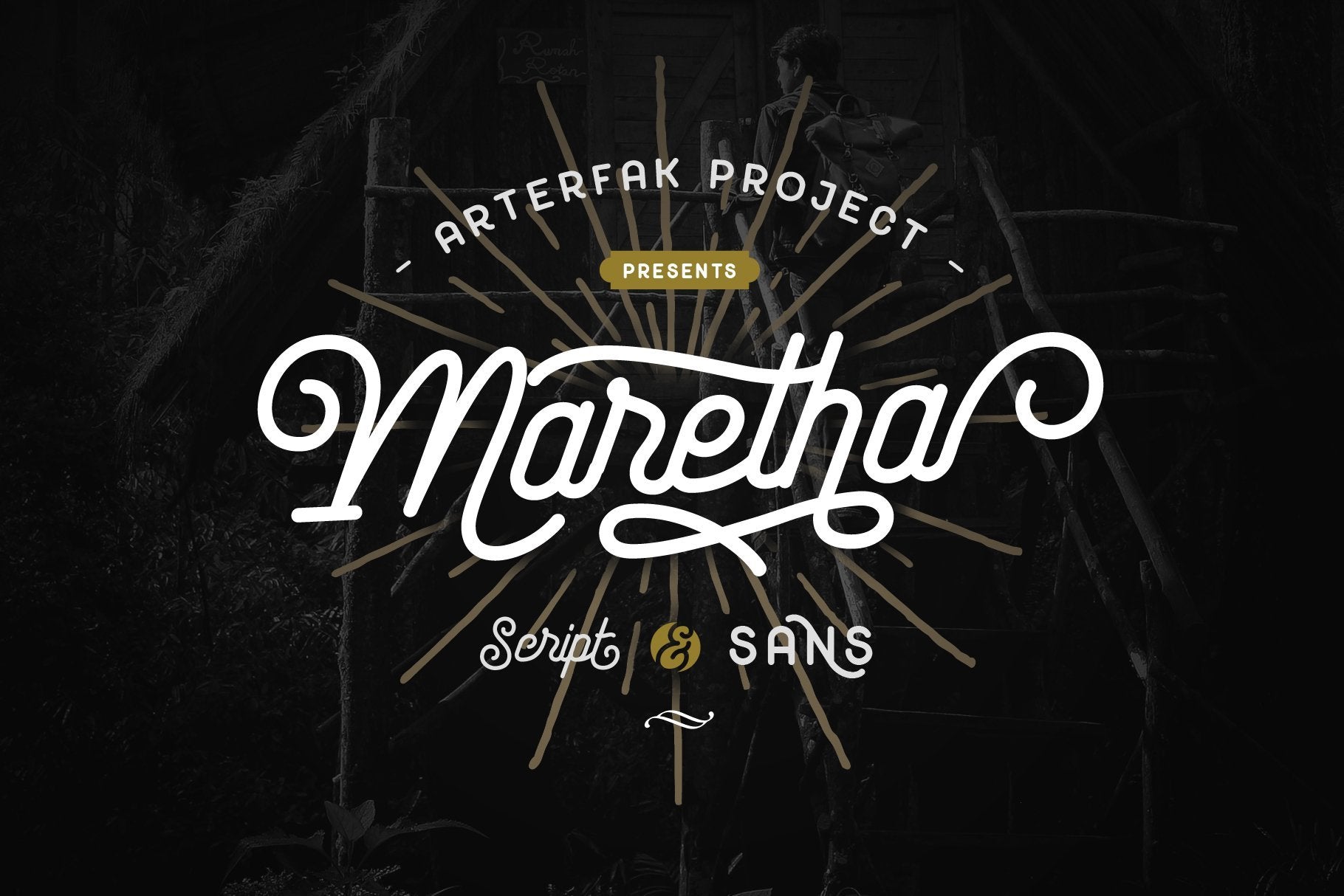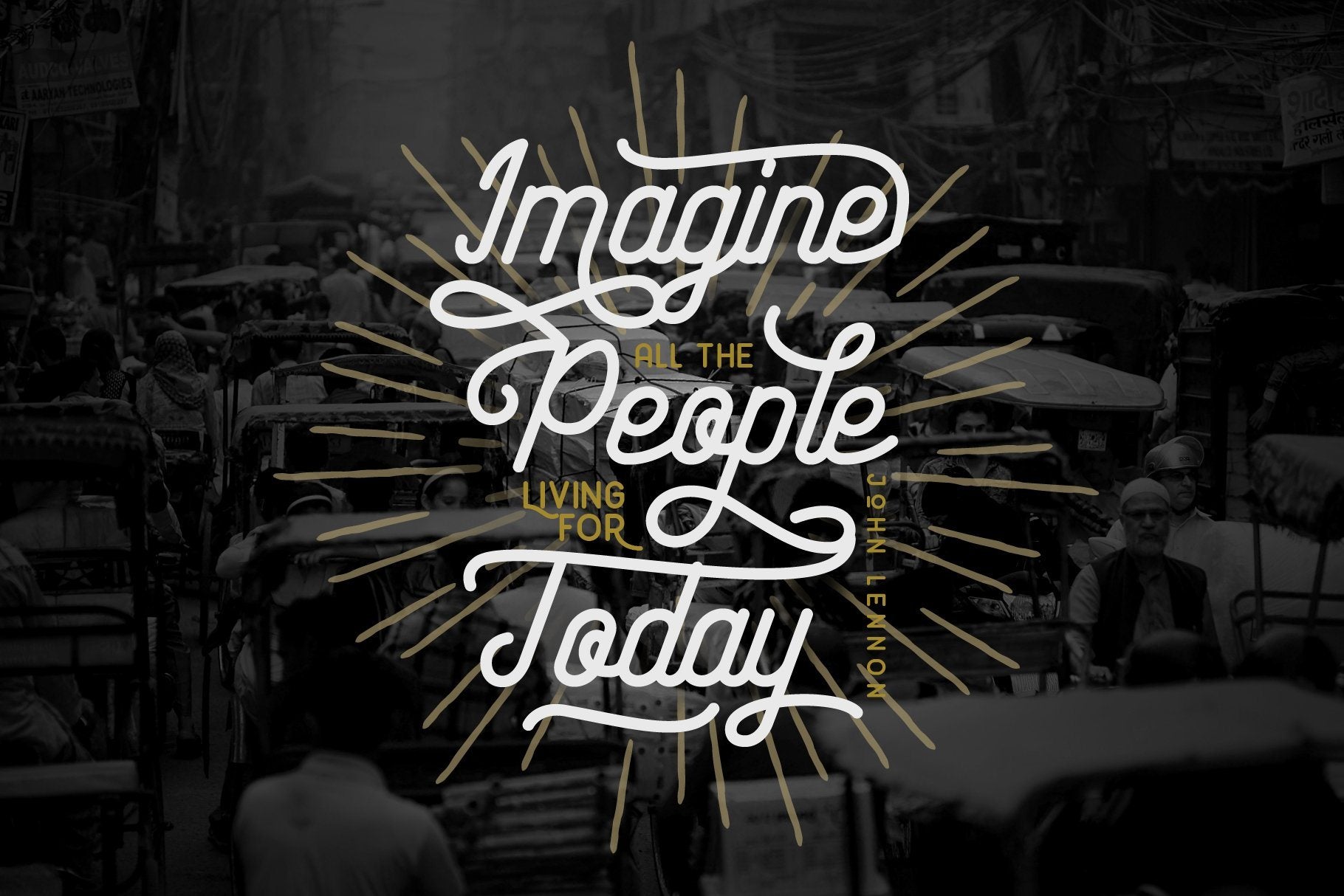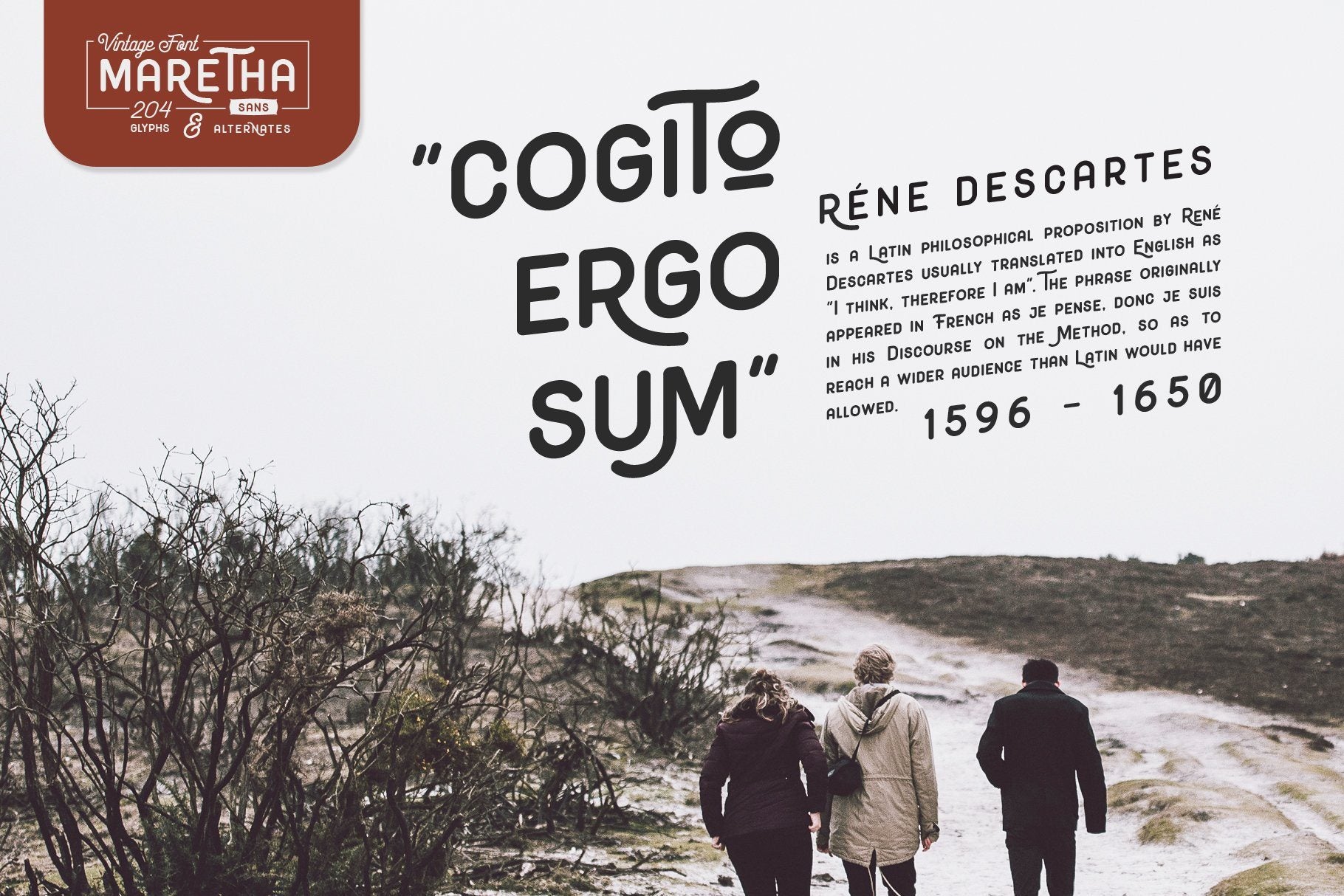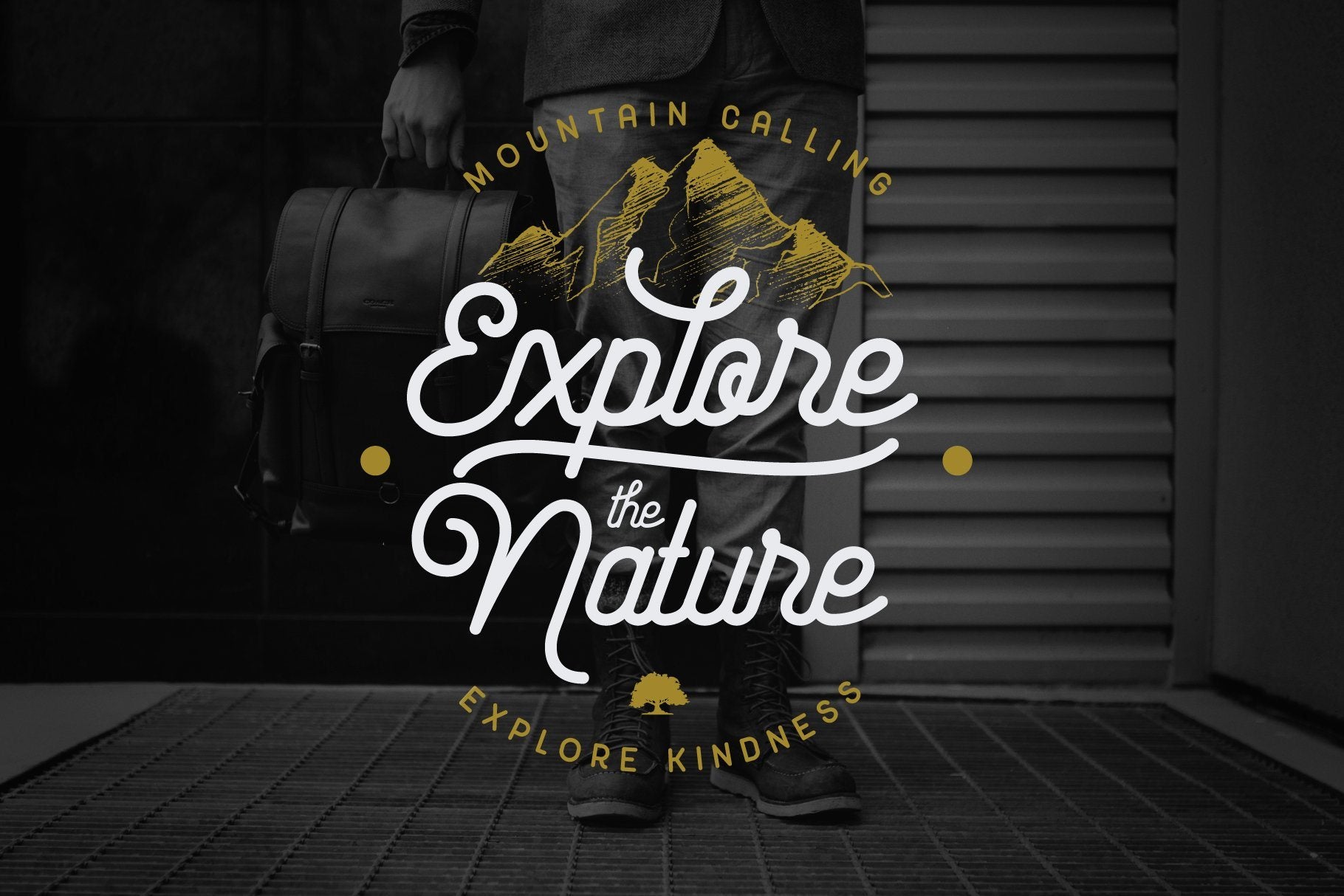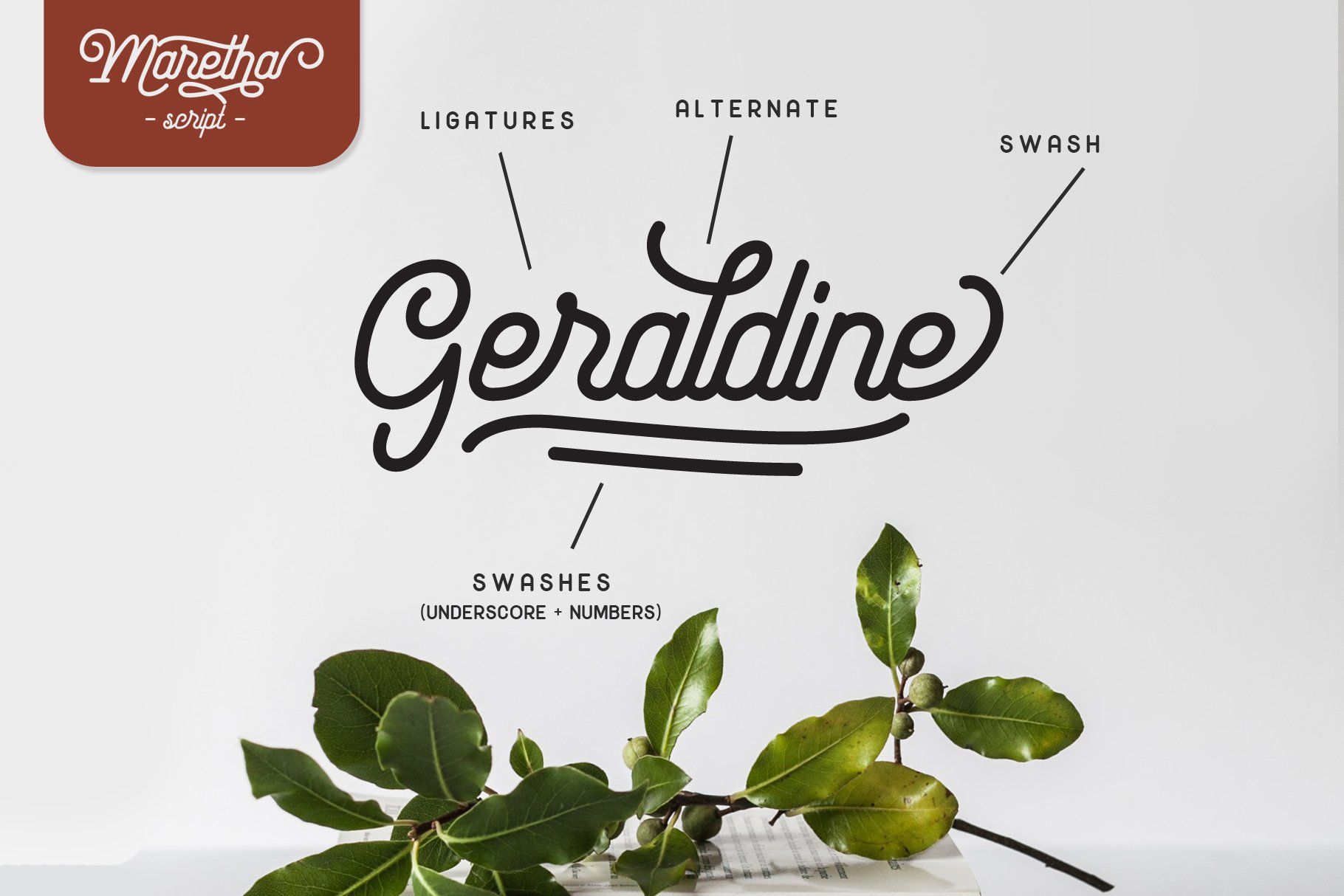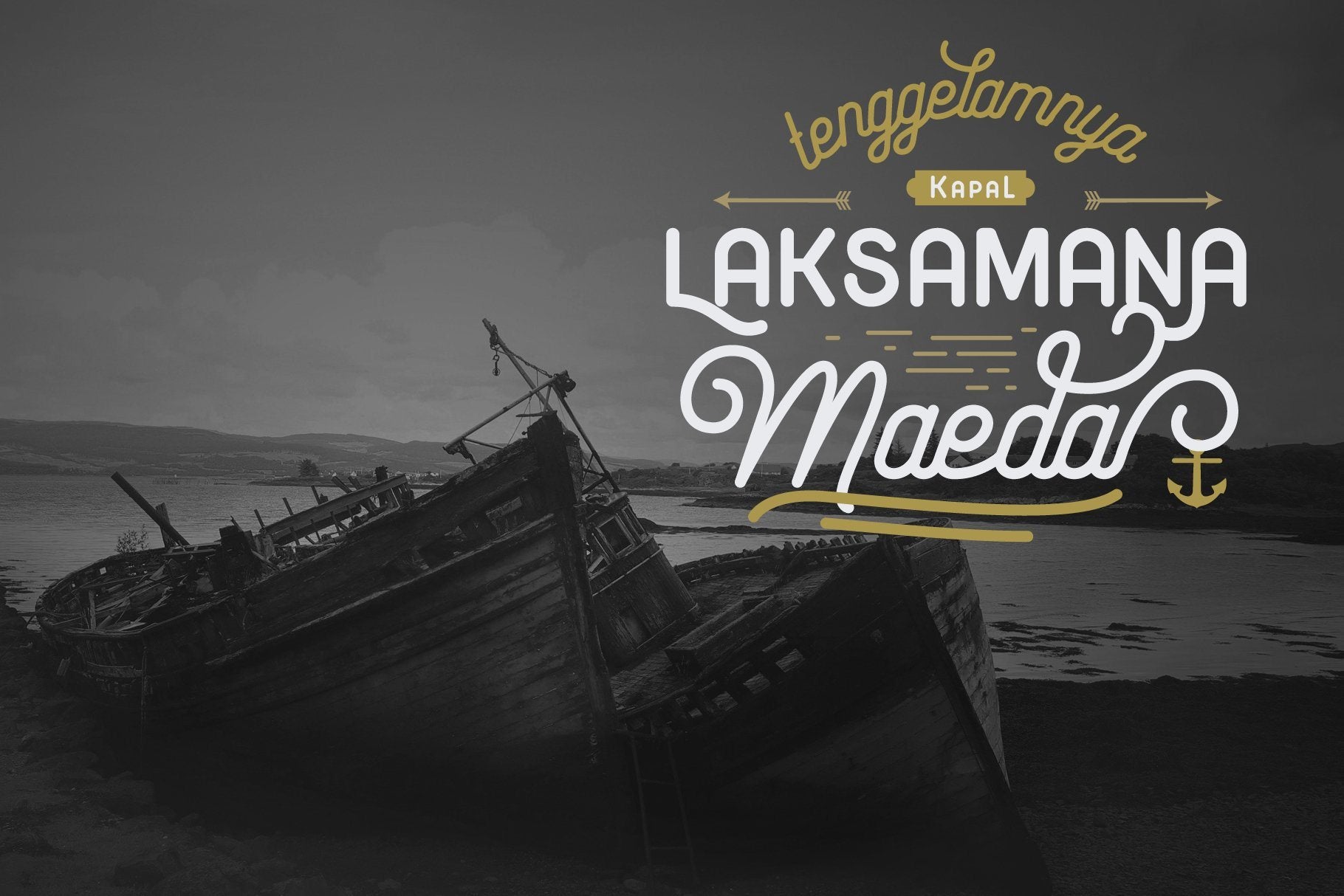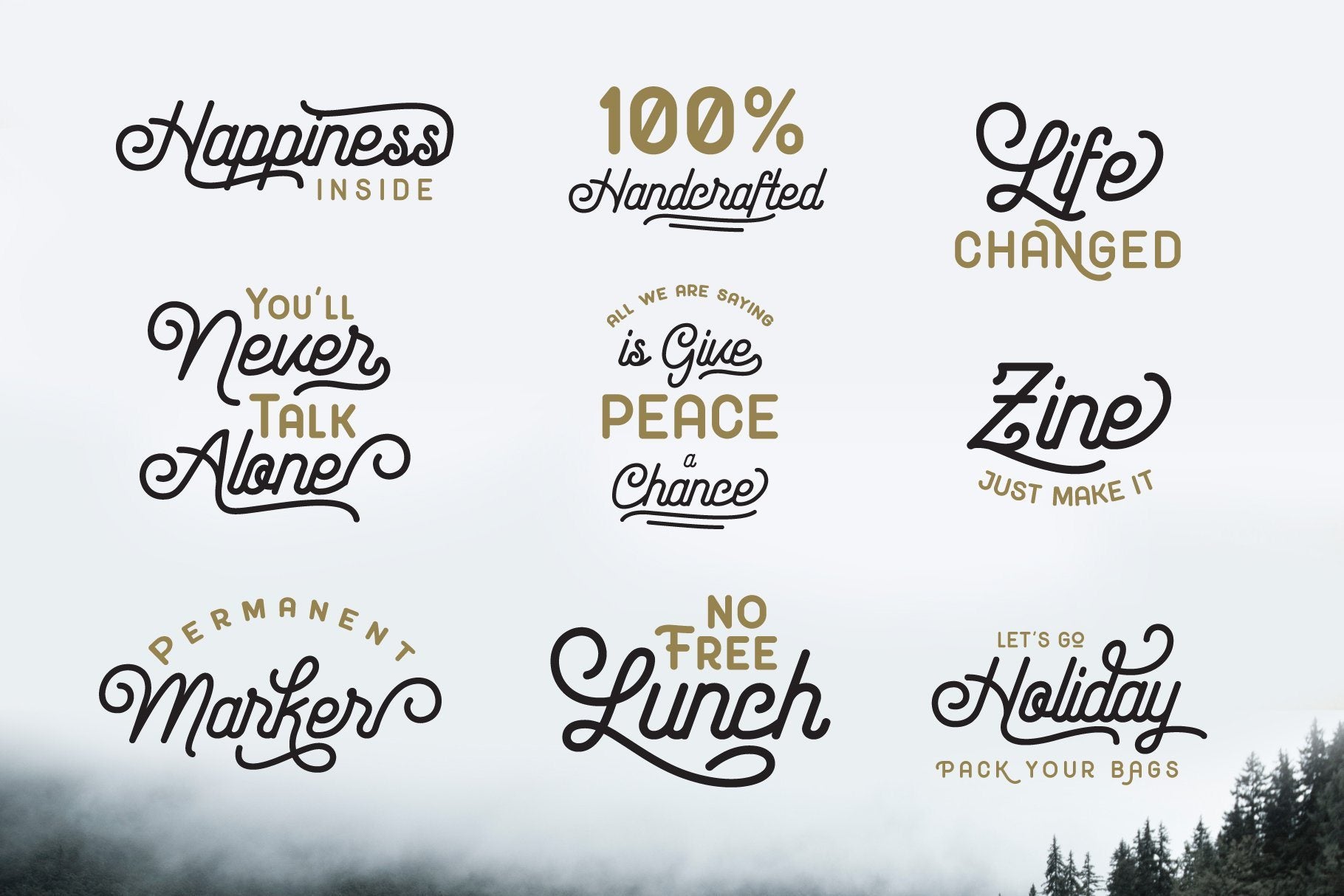
Maretha Font Duo
About Maretha Font Duo
Introducing Maretha Font Duo The set of two fonts designed for a good combination. Script and Sans, 2 different styles that allow you to make a great custom combination of lettering designs. These fonts are included with some features such as alternates, swashes, and ligatures to give you more options and accessible in Adobe Photoshop, Illustrator, CorelDraw, etc. Maretha Font Duo especially Maretha Script also has individual swashes that you can apply in any lowercase-letters by press ‘underscore’ and ‘number 0-9’. These vintage minimalism font, are great for any design project such as vintage logo, store font, clothing brand, label design, wedding design, quotes, craft, and much more. Maretha Font Duo comes with complete basic glyphs composition. In Zip file you’ll get fonts featured : Uppercase Lowercase Numbers Symbols Basic international languages Stylistic alternates Swashes Ligatures